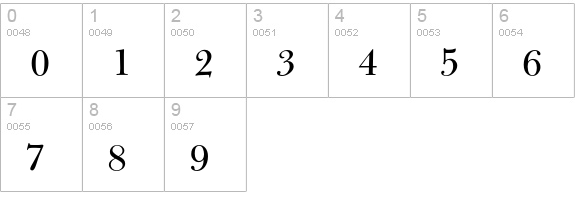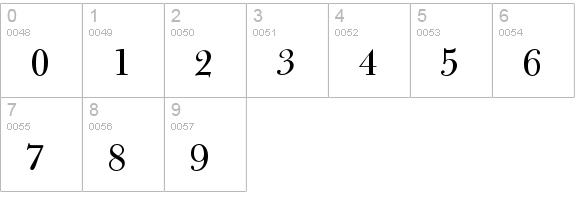
Bulmer-Roman font is a timeless and elegant typeface that exudes sophistication and charm. With its classic serif design and balanced proportions, Bulmer-Roman is perfect for adding a touch of refinement to any project. Whether you're designing a logo, creating a wedding invitation, or crafting a vintage-inspired poster, this versatile font will elevate your work to new heights. The best part? Bulmer-Roman is completely free to download at FontsMarket.com. Simply visit the website and start using this beautiful font in your projects today. Let Bulmer-Roman bring a touch of timeless elegance to your designs and make a lasting impression on your audience.